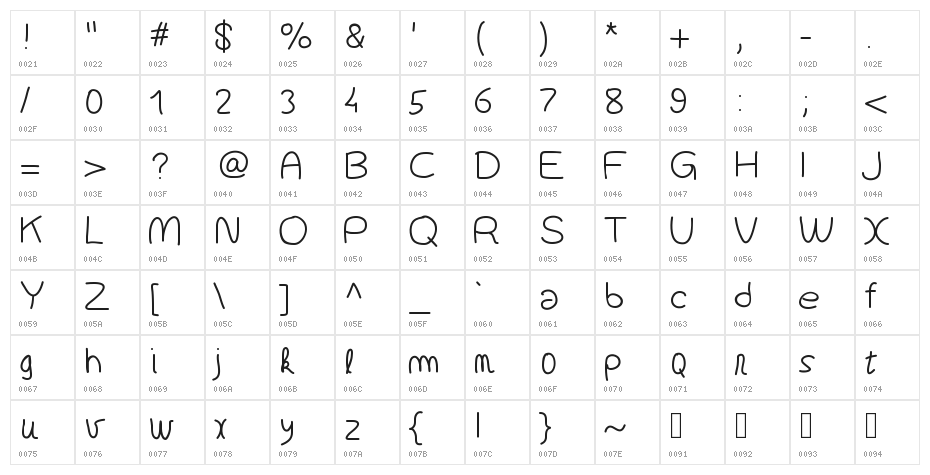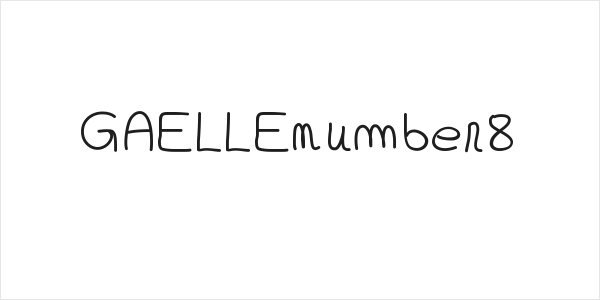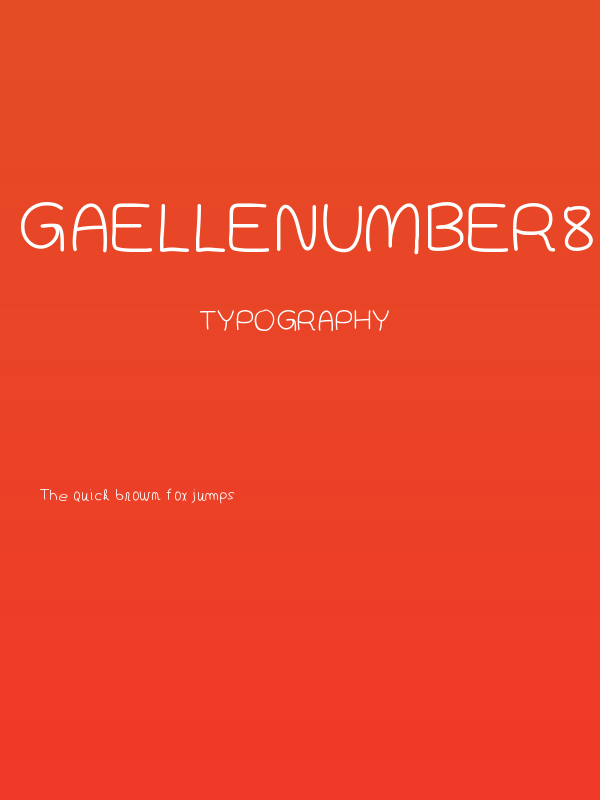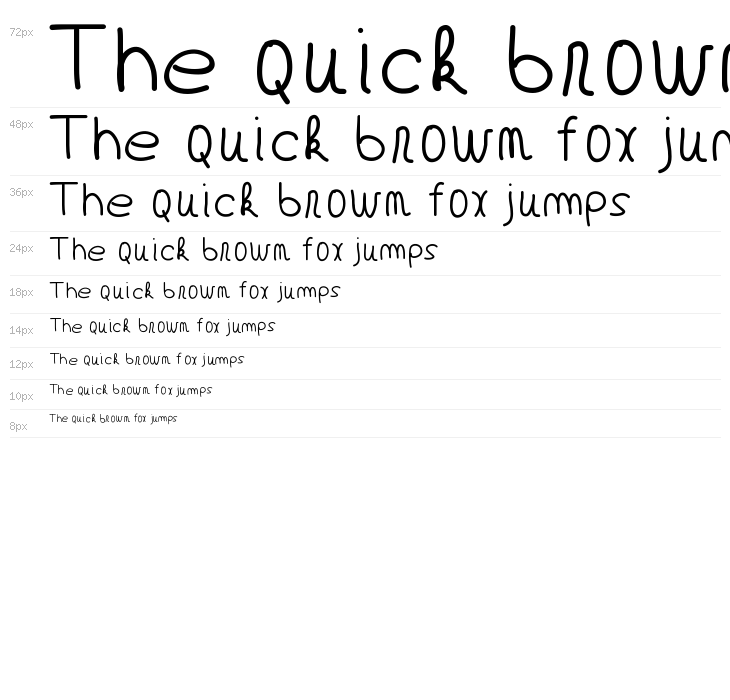
GAELLEnumber8 Font
GAELLEnumber8 Description
This playful and whimsical font features a handwritten style with smooth, rounded edges and a casual appearance. The characters are slightly irregular, giving it a friendly and approachable feel. The uppercase letters maintain a consistent height, while the lowercase letters have a charming, slightly uneven baseline. The numerals and special characters are designed to match the overall playful aesthetic, making this font suitable for creative and informal projects. Its unique style adds a personal touch to any design, making it ideal for projects that require a humanistic and warm feel.
| Overall Style | Playful |
| Use Case | Headlines, Logos, Informal Text |
| Proposed Projects | Ideal for children's books, greeting cards, playful branding, and informal invitations. |